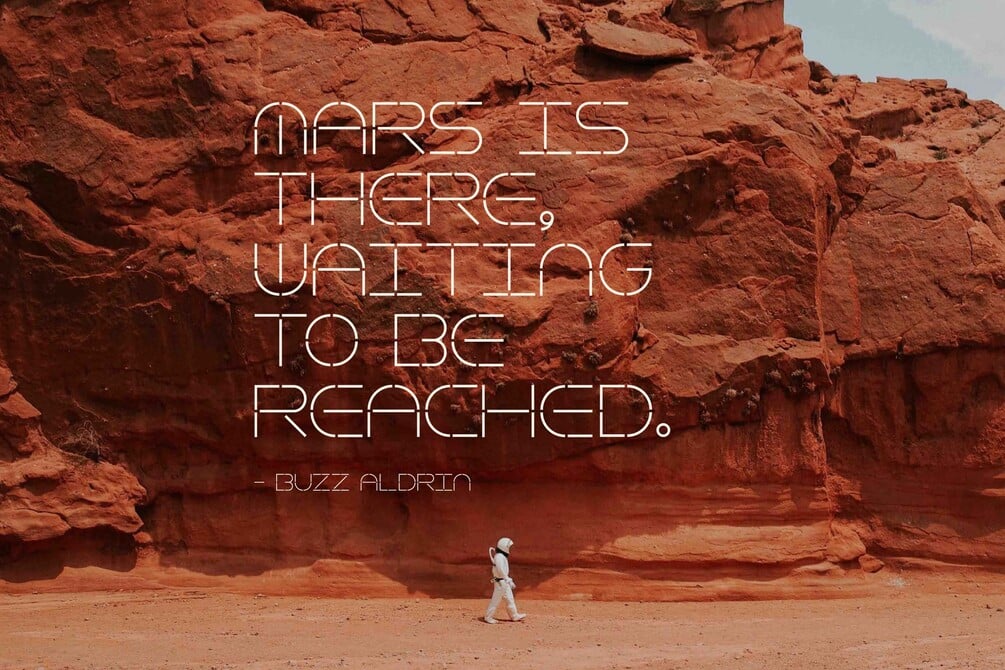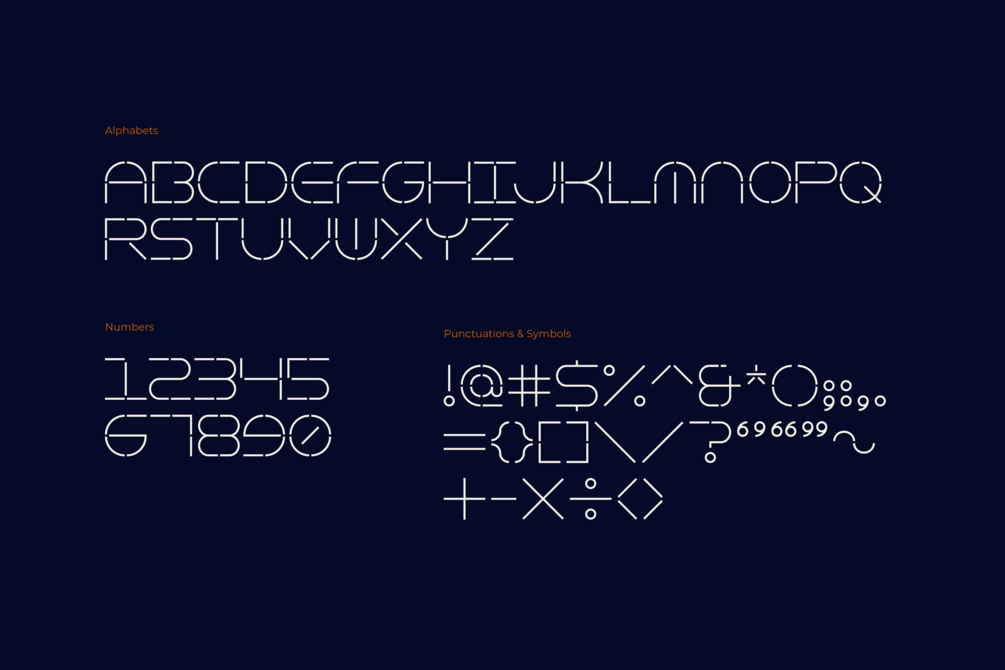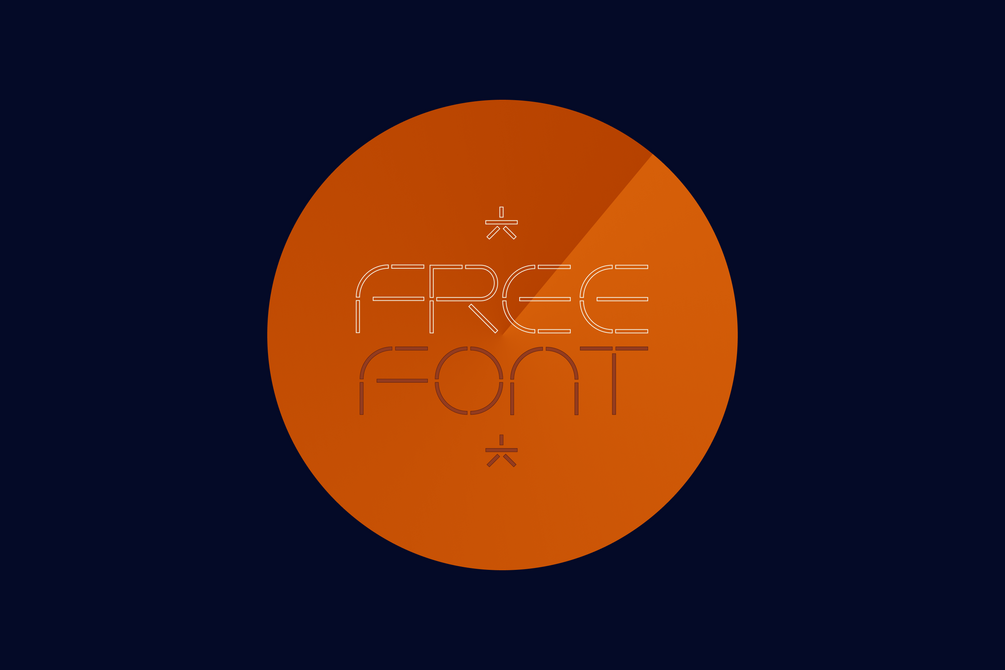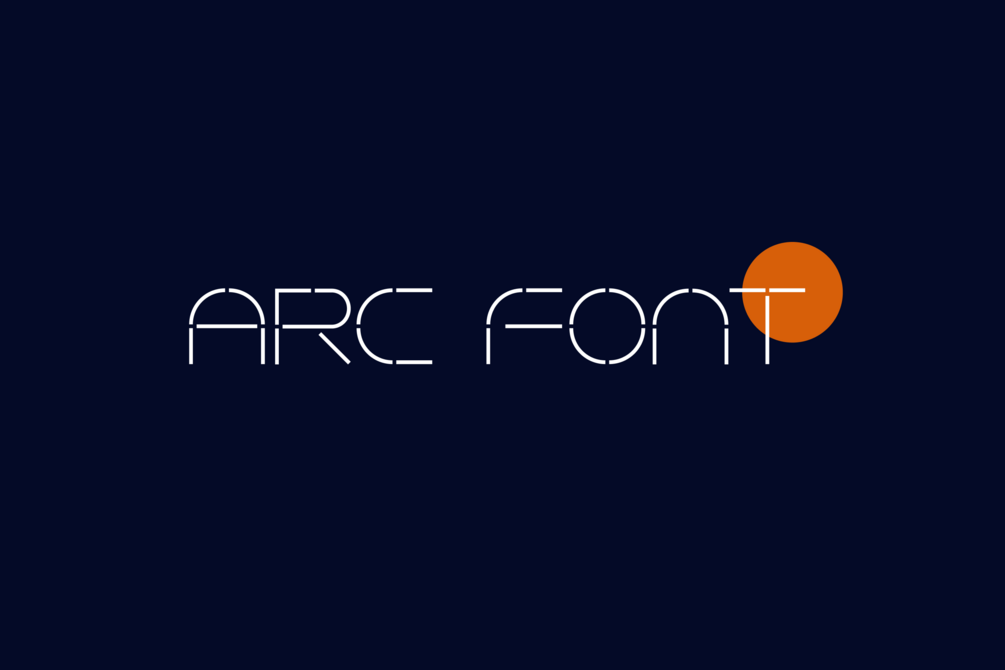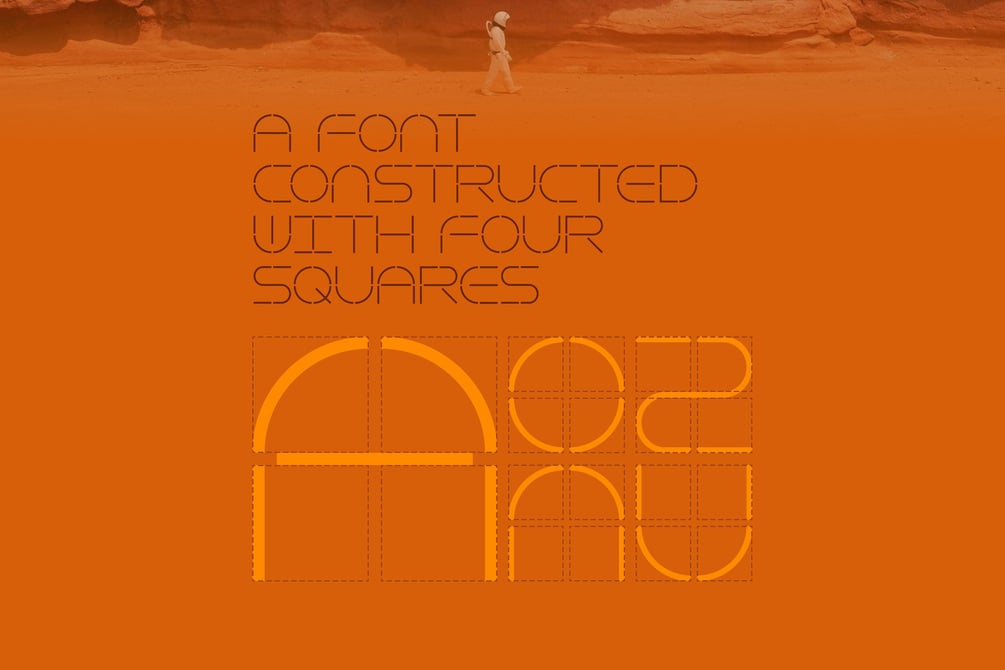
Junhan
Arc font is a display style font that gives scientific vibe. Designed with 4 squares as base with spacing in between, the letters are primarily constructed with curve, straight or diagonal stroke. The font supports basic latin characters with uppercase alphabets, numbers and basic punctuations.